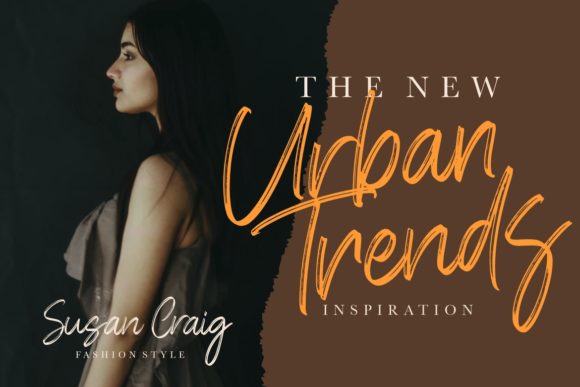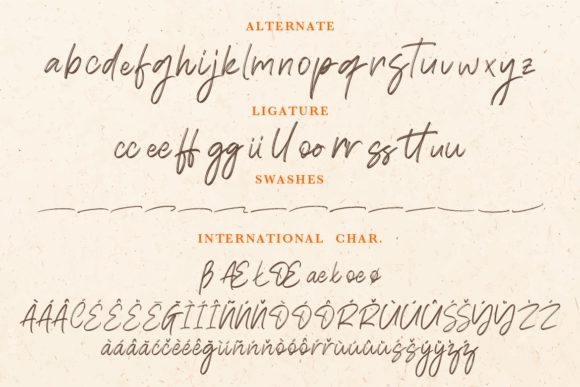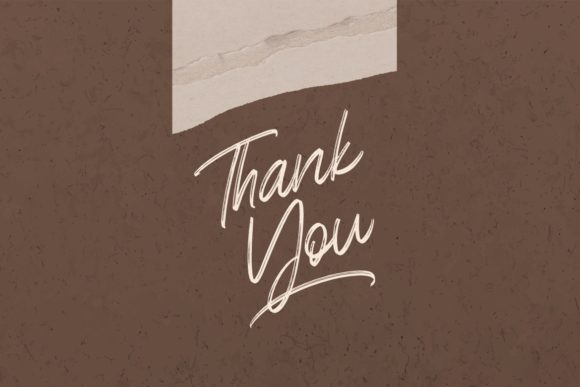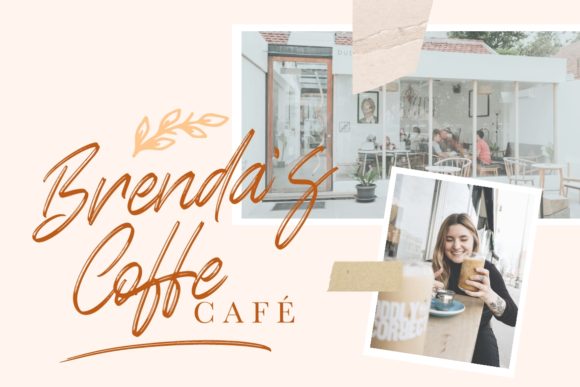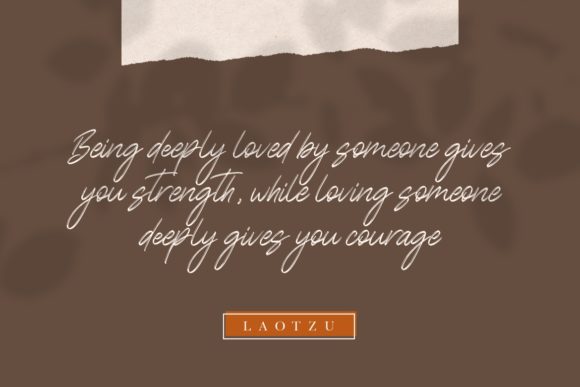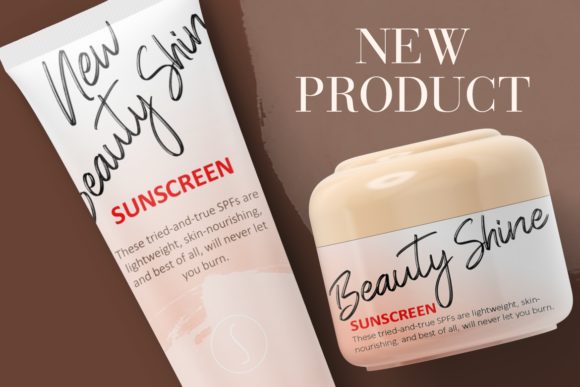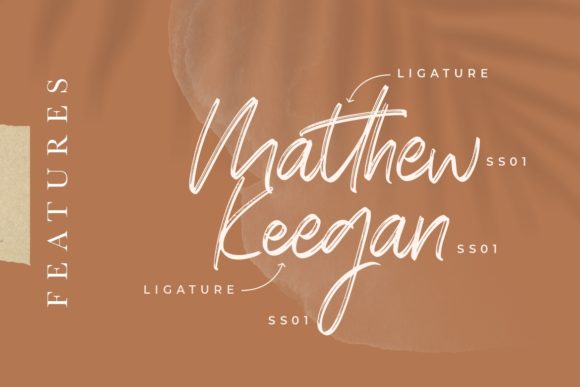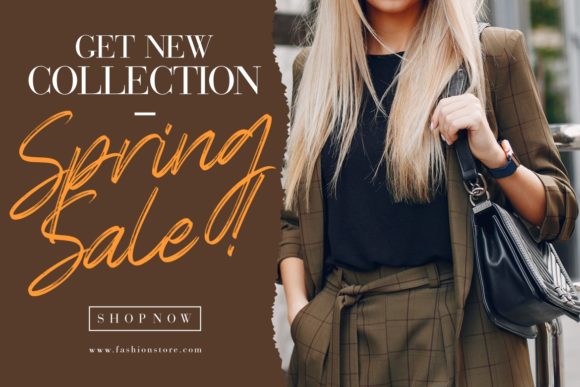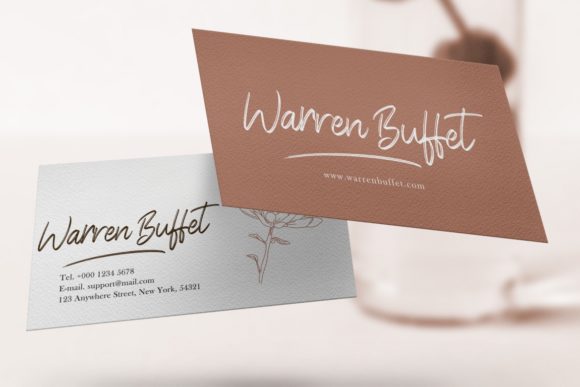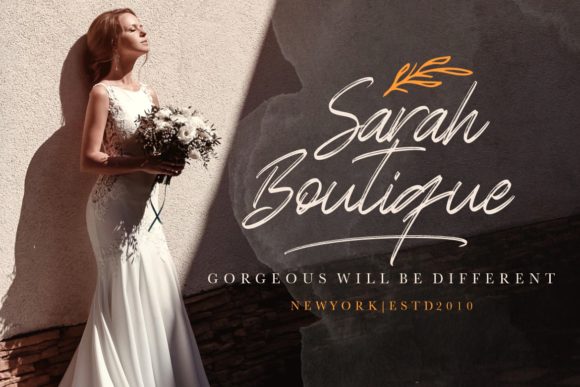
Brokllyng Font
About Brokllyng Font
Brokllyng is a spectacular brush-style handwritten font that adds a touch of originality and uniqueness to your designs. With its expressive brush strokes and dynamic letterforms, Brokllyng is the perfect choice for creating outstanding and eye-catching designs.
The brush style of Brokllyng gives it a natural and organic look, as if it was handcrafted with a brush and ink. This adds a sense of authenticity and character to your designs, making them stand out from the crowd. Whether you’re designing logos, posters, invitations, or any other creative project, Brokllyng adds a touch of artistic flair.
One of the standout features of Brokllyng is its versatility. It can adapt to various design themes and styles, from bold and edgy to elegant and sophisticated. The font’s unique brush strokes and varied letterforms allow you to create designs that are truly one-of-a-kind.
The PUA encoding of Brokllyng ensures easy access to all the glyphs and swashes that come with the font. This means you have a wide range of design options at your fingertips, allowing you to add decorative elements, flourishes, and alternative characters to your designs effortlessly.
Brokllyng is designed to make an impact. Its bold and expressive strokes command attention and create a strong visual presence. The uneven edges and varying thicknesses of the letterforms give the font a raw and organic feel, adding a sense of energy and movement to your designs.
Whether you’re designing for print or digital media, Brokllyng shines in both large and small sizes. It maintains its legibility even at smaller sizes, ensuring that your message is effectively communicated. This makes it suitable for a wide range of applications, from headlines and titles to body text and captions.
When using Brokllyng, feel free to experiment and play with different typographic treatments. Combine it with other fonts to create unique and visually striking combinations. Its brush-style nature allows it to work well with various typefaces, adding depth and texture to your overall design compositions.
In summary, Brokllyng is a spectacular brush-style handwritten font that adds a touch of originality and outstanding flair to your designs. Its versatile nature and PUA encoding give you the freedom to create unique and personalized designs with ease. Whether you’re aiming for a bold and edgy look or an elegant and sophisticated style, Brokllyng is the perfect font to make your designs truly stand out.